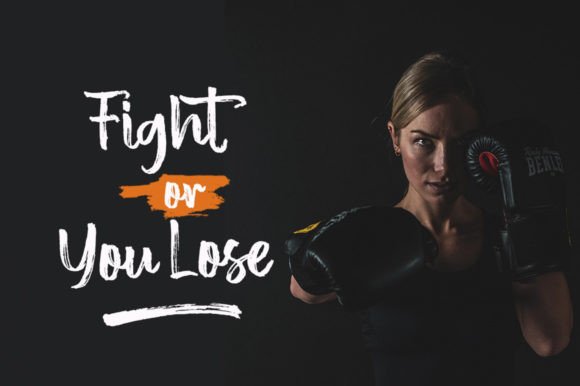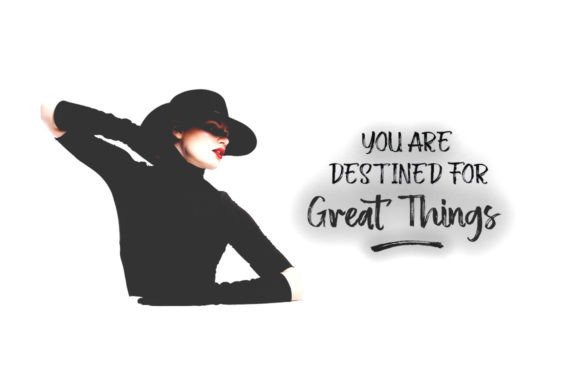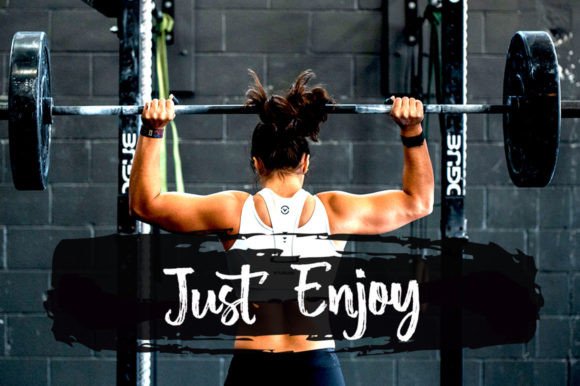
Introduction to Bortane Font
Bortane is an exquisite handwritten font, masterfully designed to become a true favorite.
Key Features of Bortane Font
Why Choose Bortane Font?
Bortane Font offers exceptional quality and versatility, making it a valuable addition to your design toolkit. Whether you’re creating for personal projects or commercial use, Bortane Font delivers professional results.